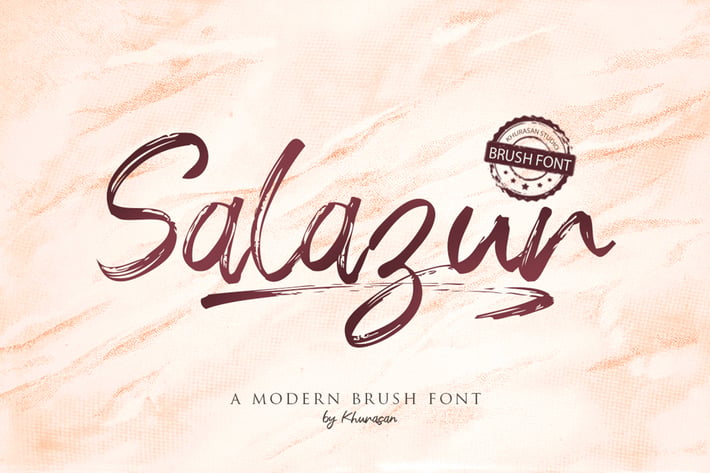
Salazur Font
The Salazur is a fresh handwritten script font, elegant and modern feel character set. The Salazur font includes a full set capital and lowercase letters, as well as multi-lingual support, swashes, numerals, & punctuation.
Numeral & punctuation
Swashes
Multilingual support for; ä ö ü Ä Ö Ü ß ¿ ¡ & more